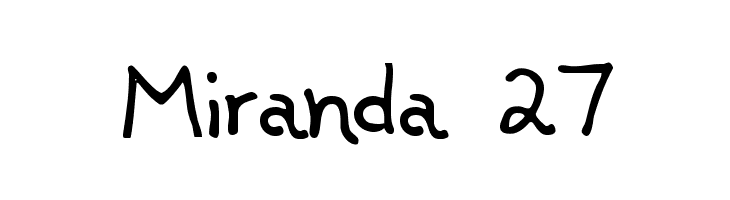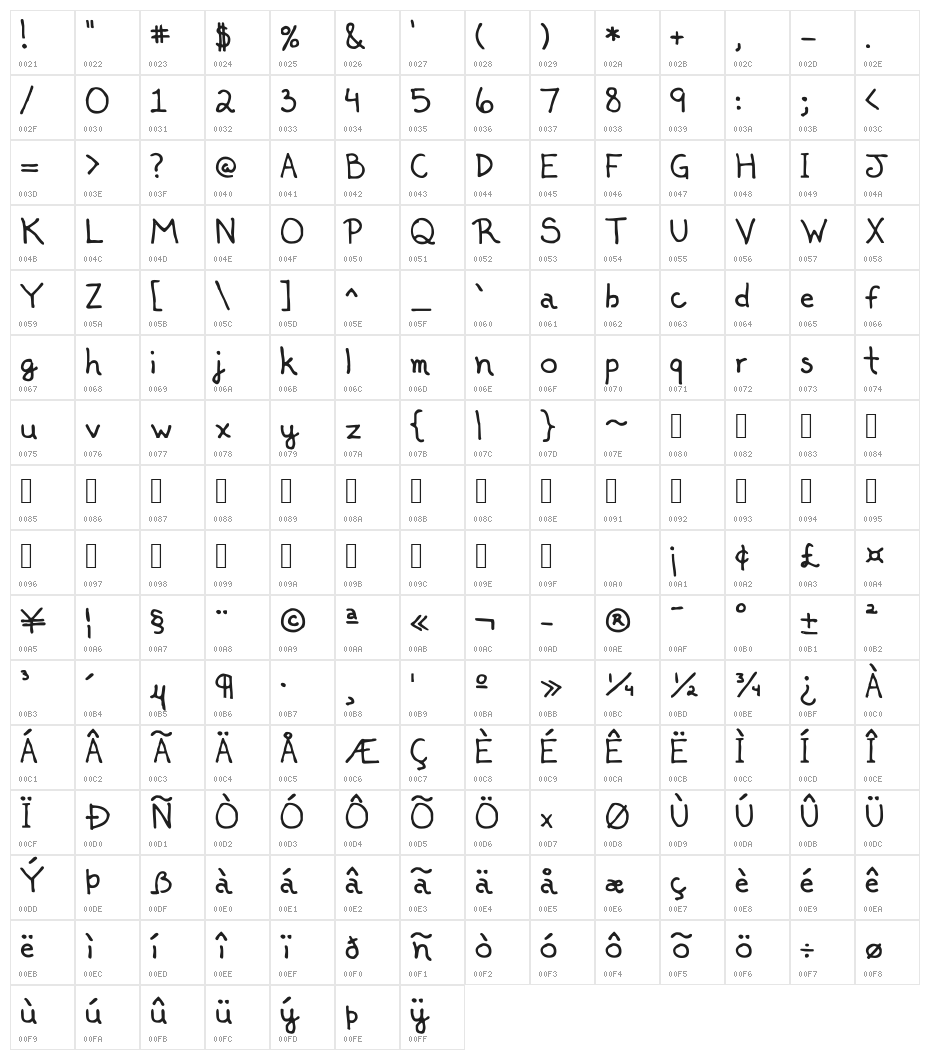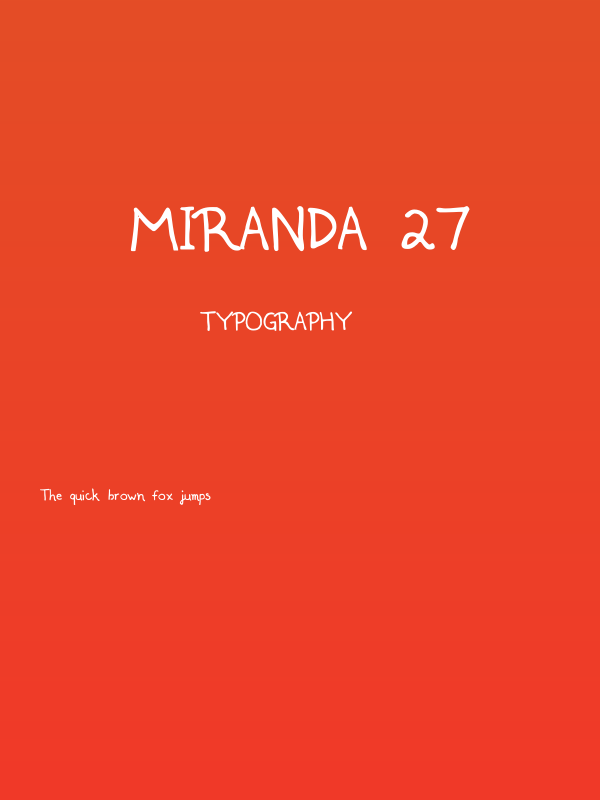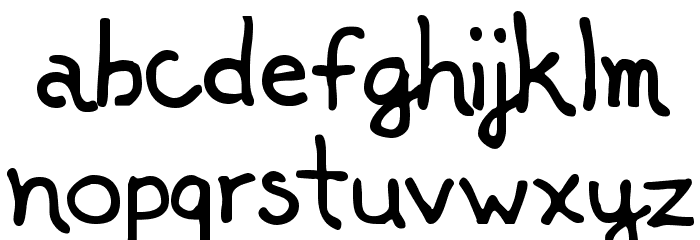
Miranda 27 Font
Miranda 27 Description
This font exudes a playful and casual handwritten style, characterized by its irregular strokes and slightly uneven baseline. The letters have a whimsical, organic feel, with rounded edges and a friendly appearance. The uppercase letters are bold and prominent, while the lowercase letters maintain a consistent flow, enhancing readability. Numbers and special characters follow the same playful design, making them suitable for informal contexts. The overall look is approachable and lively, ideal for projects that require a personal touch.
| Proposed Projects | Ideal for children's books, greeting cards, casual branding, and playful social media graphics. |